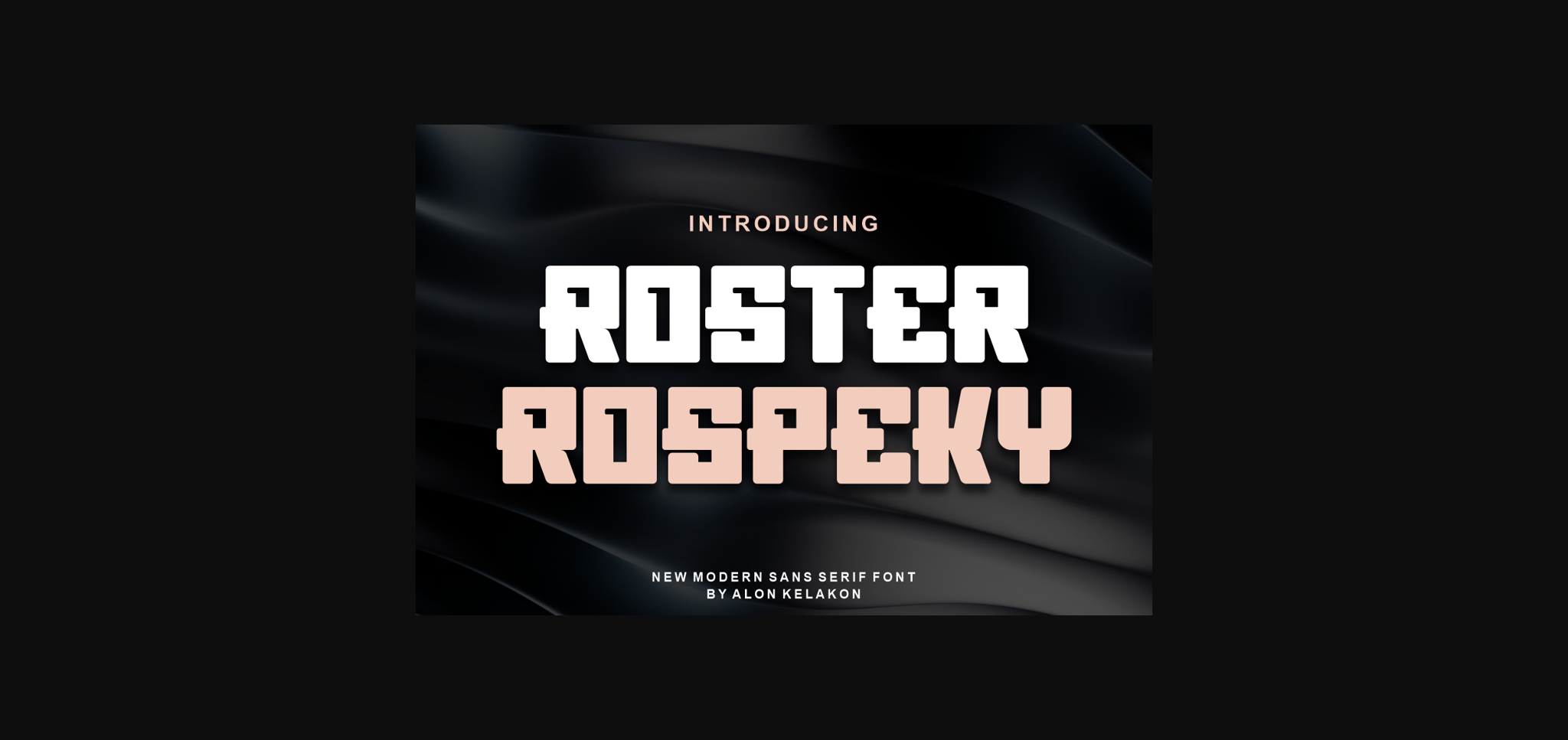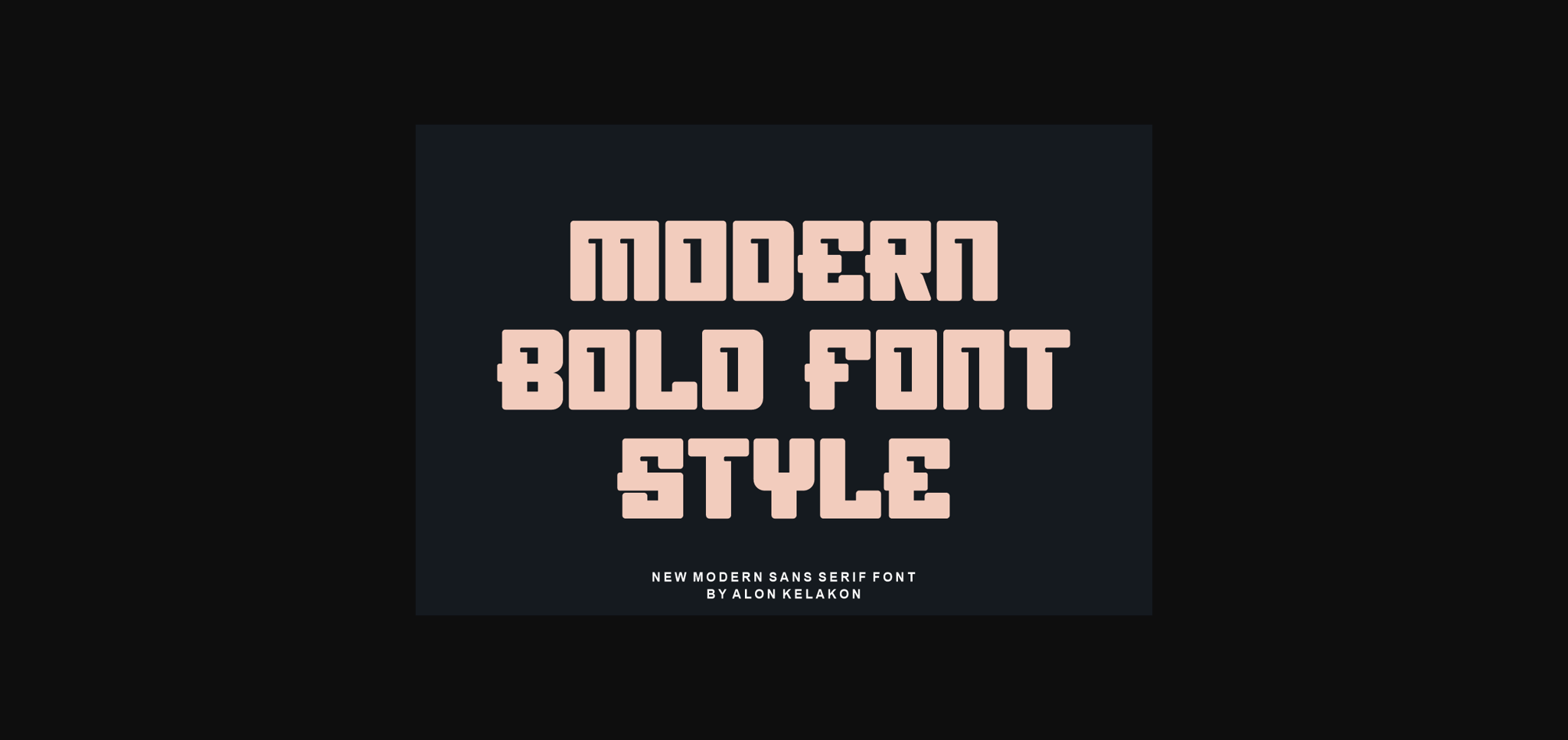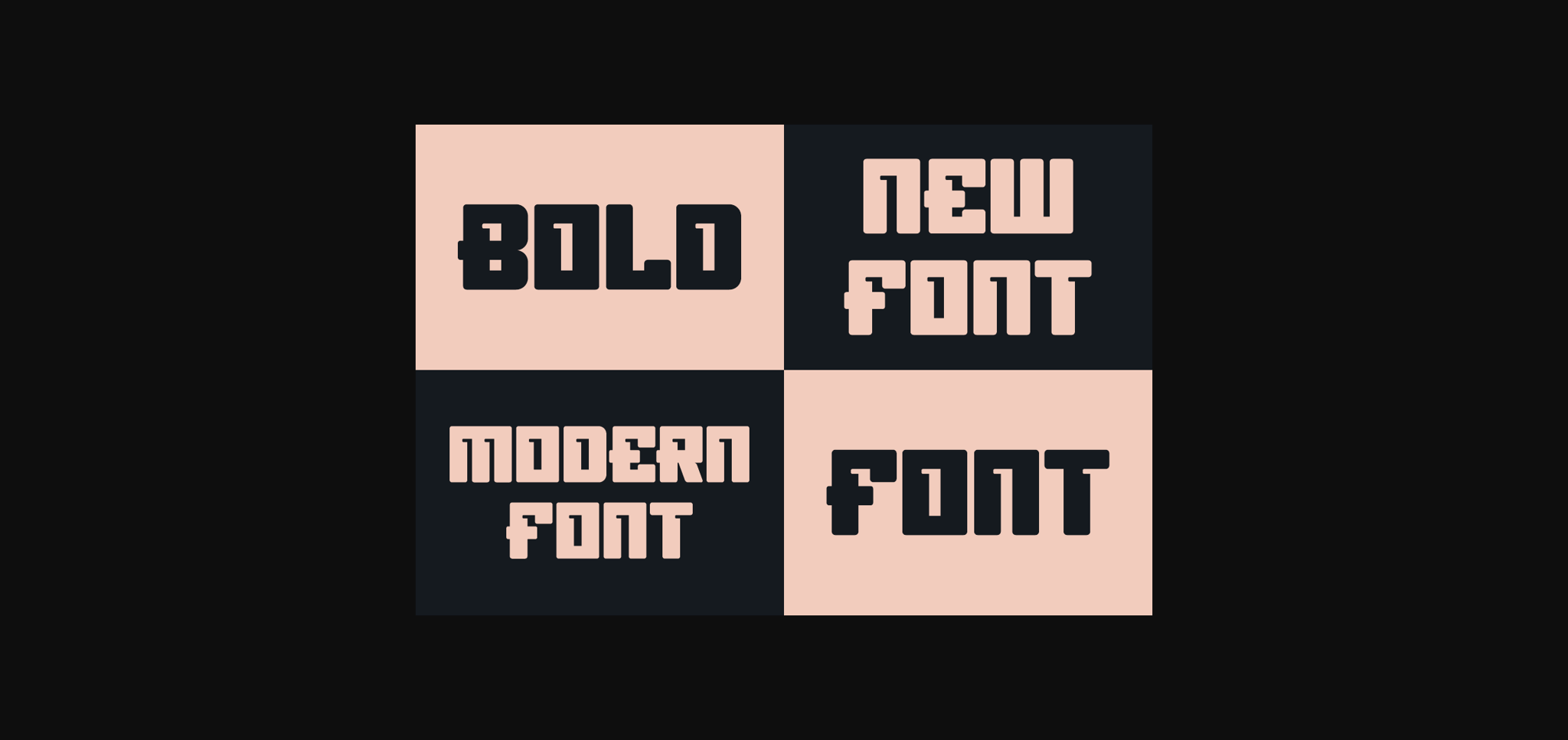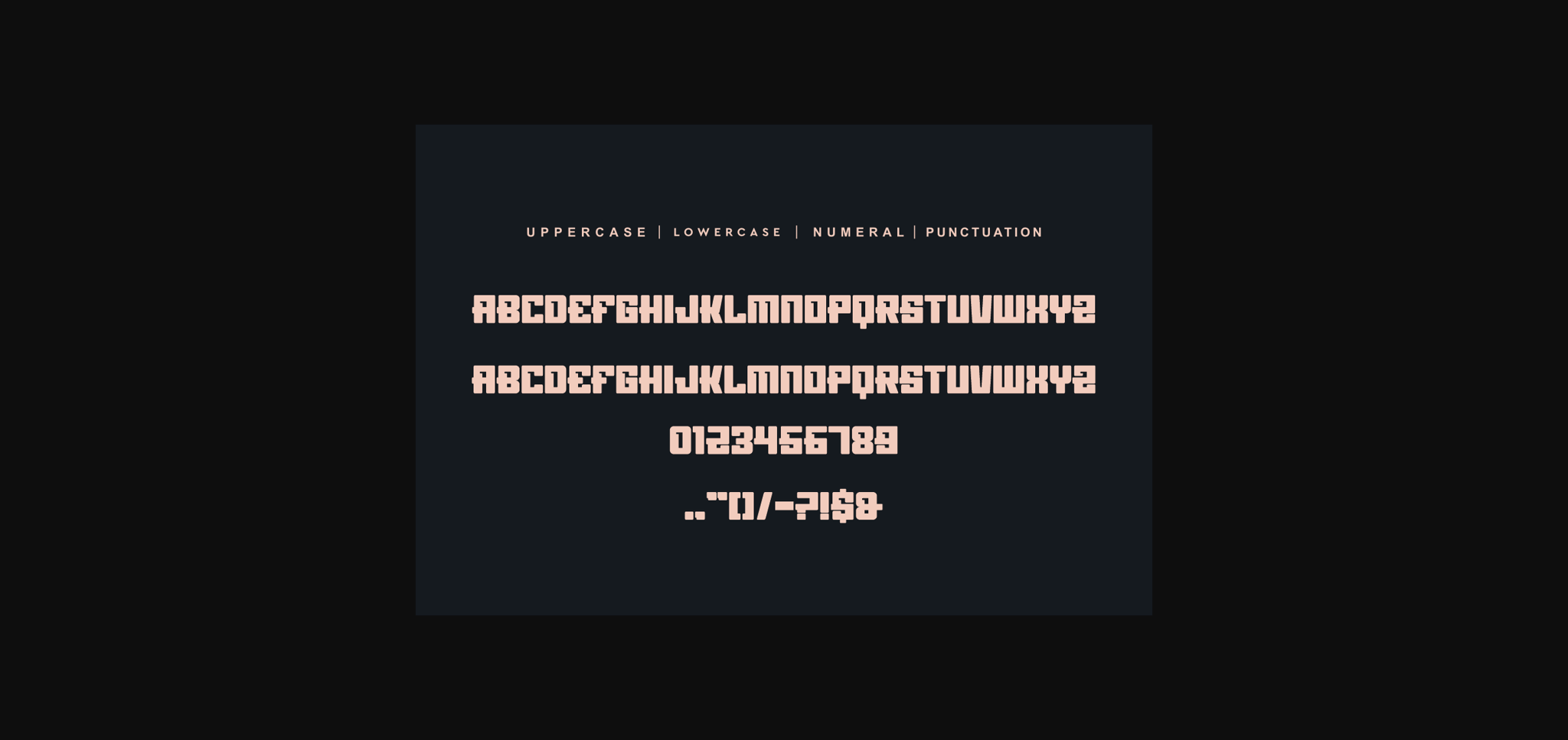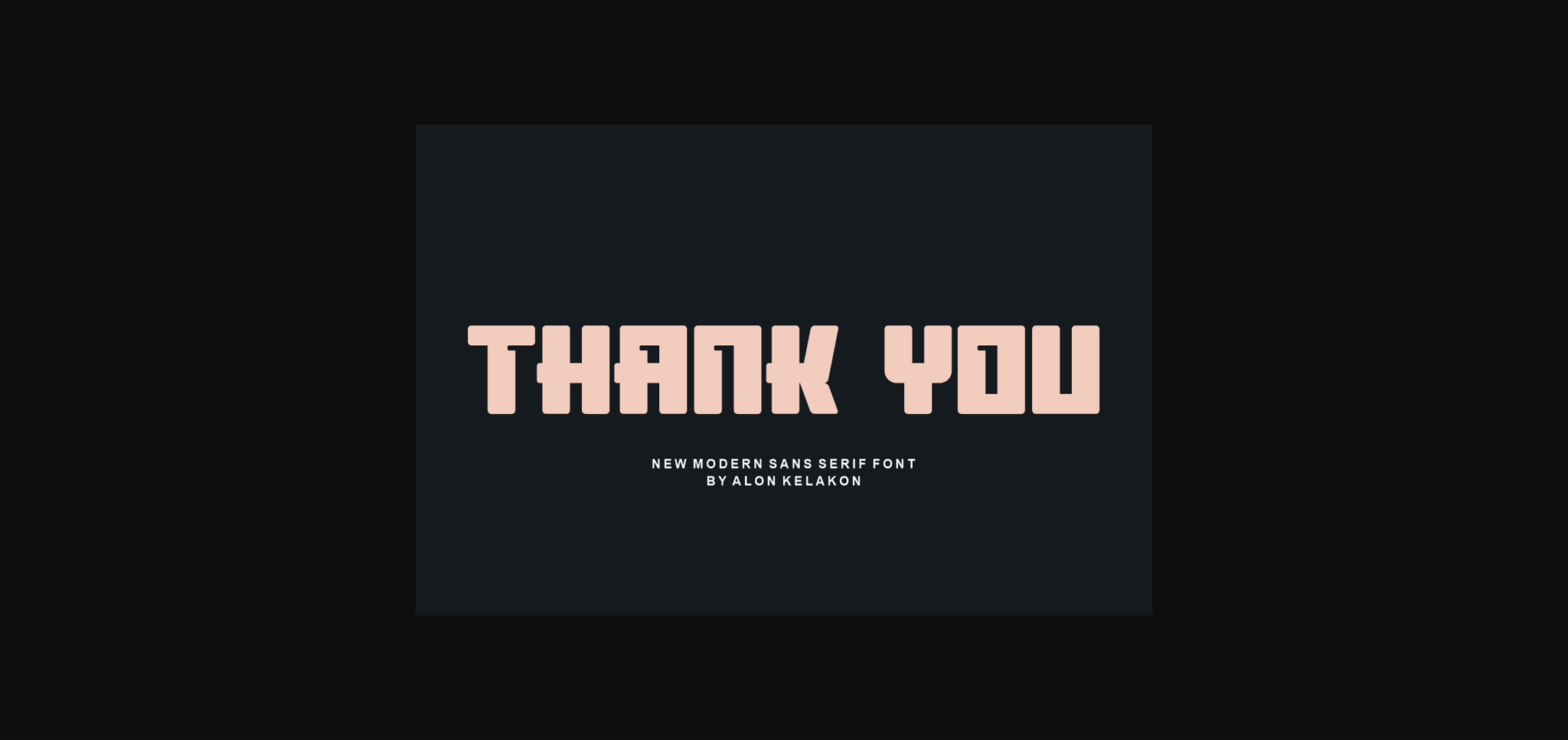
HomeSans Serif FontsRoster Rospeky Font Sans Serif Fonts Roster Rospeky Font FacebookXPinterestWhatsApp 1 of 7 ... Roster Rospeky Font Poster 2... Roster Rospeky Font Poster 3... Roster Rospeky Font Poster 4... Roster Rospeky Font Poster 5... Roster Rospeky Font Poster 6... Roster Rospeky Font Poster 7... About Roster Rospeky Font Roster Rospeky is a cool and unique sans serif font. Bold and assertive, this font is suitable for a wide spectrum of applications. DOWNLOAD NOW People also explored New Scraper Font Citicon Font Hadleigh Artemis Font Crafty Sons Font Gooster Font Freakouts Font Letter Font Magazine Mockup Reylith Font 274 0 TagsRoster Rospeky Font Previous articleCartif FontNext articleSilent Sunshine Font LEAVE A REPLY Cancel reply Comment: Please enter your comment! Name:* Please enter your name here Email:* You have entered an incorrect email address! Please enter your email address here Website: Save my name, email, and website in this browser for the next time I comment. Personal Use Free Soria Personal Use Free Read more about this font Messy Personal Use Free Read more about this font Bright Dreams Personal Use Free Read more about this font Anggraini Personal Use Free Read more about this font BLOG Modern Sans-Serif Fonts That Brands Love in 2025 In 2025, modern sans-serif fonts remain a top choice for brands looking to project clarity, professionalism, and... Elegant Wedding Invitation Fonts – Handwritten & Script Fonts How to Cut Any Font on Cricut: Convert a Font to SVG (Free) The 10 Best Handwriting Fonts to Add Personality to Your Designs